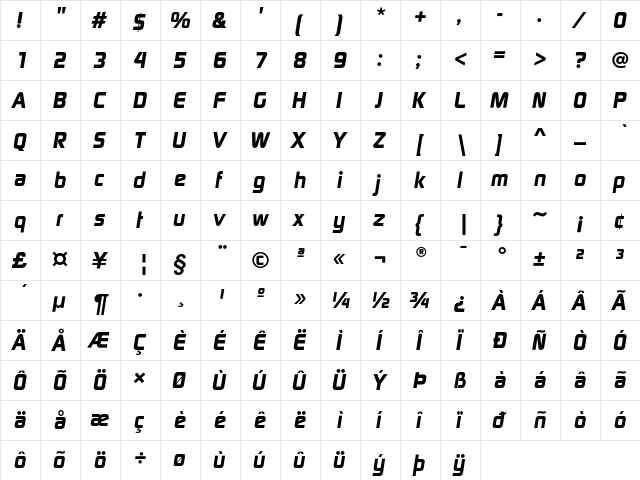
Digital BoldItalic
Design Context for Digital Typeface
Digital channels digital-age aesthetics through its sharp, structured letterforms — ideal for brands that want to signal innovation. Its italic angle brings a sense of urgency and motion to the letterforms. Its bold stroke weight gives it real presence on the page.
Pro Tip: Try Digital with generous letter-spacing in UI labels and navigation — the geometric forms benefit from room to breathe.